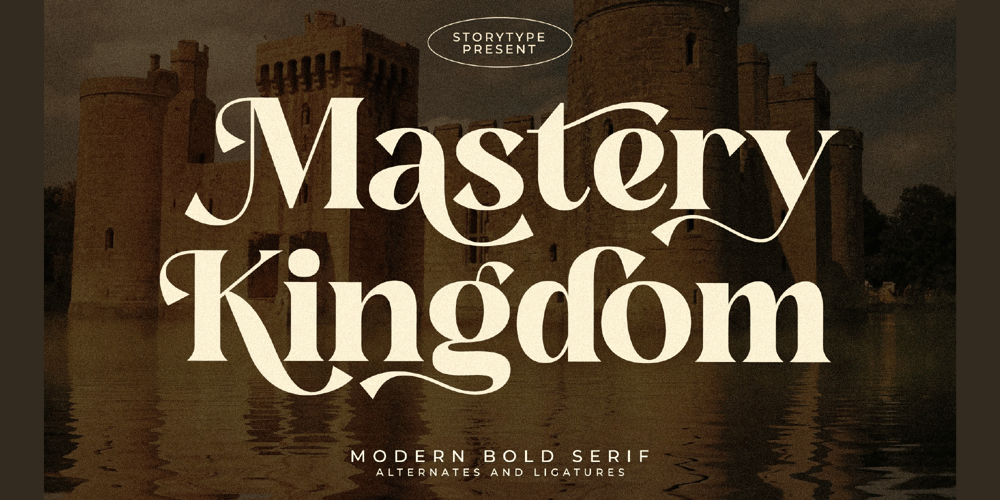
Mastery Kingdom Font Family was designed by Heru Utama Putra and published by Letterena Studios. Mastery Kingdom contains 2 styles and family package options. Mastery Kingdom is a modern, bold, and elegant serif font with a chic appearance. No matter the topic, this font will be an incredible asset to your fonts’ library, as it has the potential to elevate any creation.